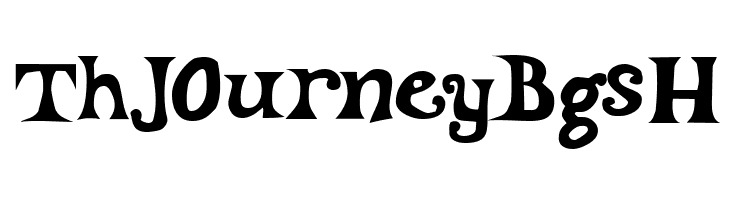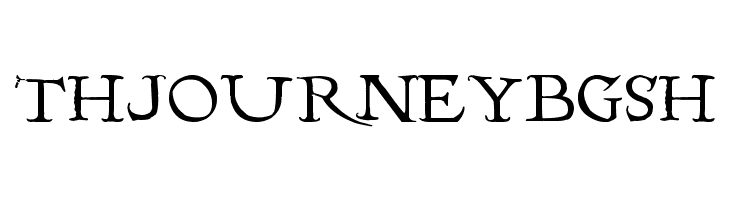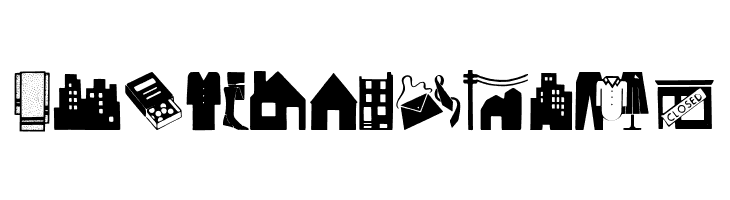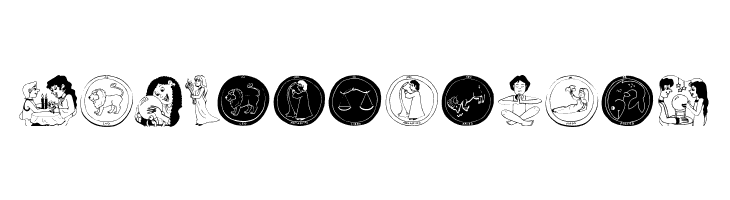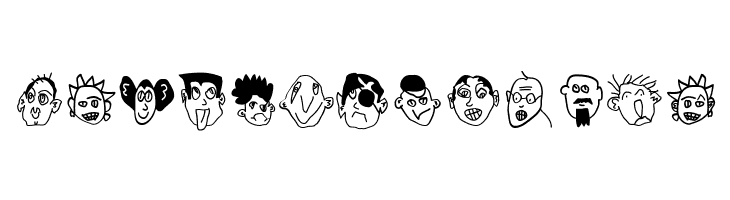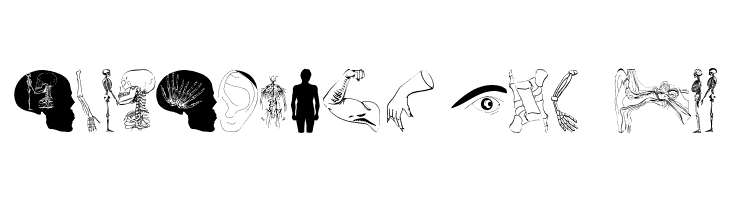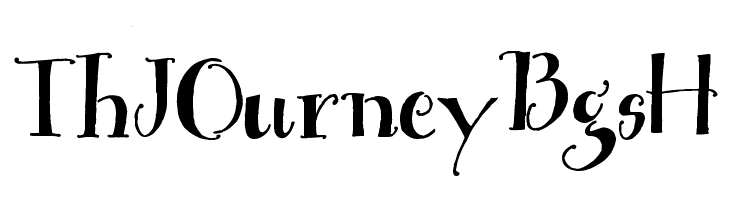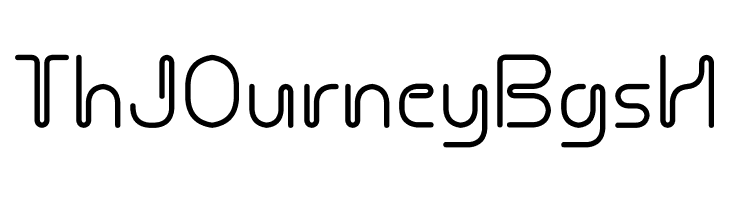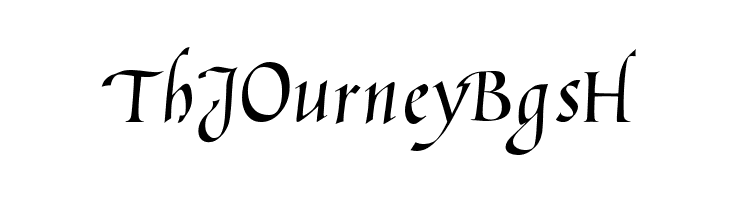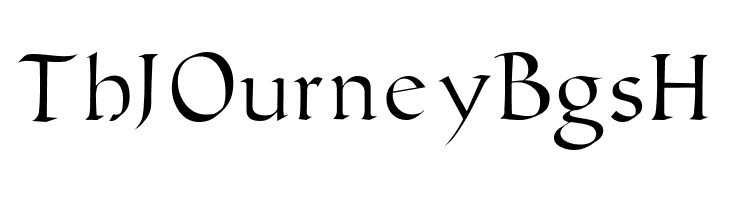
• Hopfer Hornbook
• Horoscopish
Whimsical zodiac-themed pictorial display font.
• Hosobiki
( Addax Designs - www.nt-p.net/adx/index.html )
A modern, geometric font with rounded edges and a sleek, minimalistic design.
• Hourly, Daily
( Solar Sister - web.archive.org/web/20050308194059/www.hellostranger.com/solarsister/ )
A whimsical, vintage-style font with bold serifs and playful character shapes.
• House Sitter's Club
A whimsical and artistic font with playful curves and varying stroke widths.
• Housing
Icon-based decorative font with housing and lifestyle motifs.
• HumanHeads
Cartoonish, hand-drawn font made of expressive human head illustrations.
• HumanInside
An anatomical dingbat font with detailed human body illustrations.
• Humanistic
( George Williams - web.archive.org/web/20051223080638/bibliofile.mc.duke.edu/gww/fonts/fonts.html )
A classic, elegant serif font with a humanistic, calligraphic influence.
• Humanistic Cursive
( George Williams - web.archive.org/web/20051223080638/bibliofile.mc.duke.edu/gww/fonts/fonts.html )
An elegant humanistic cursive font with dynamic serifs and flowing letterforms.